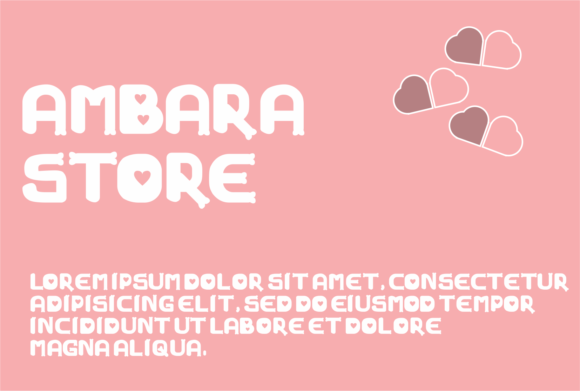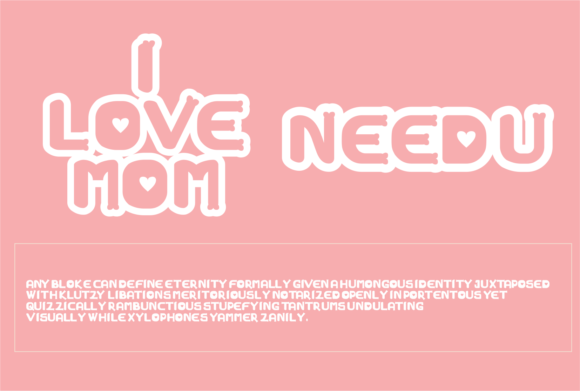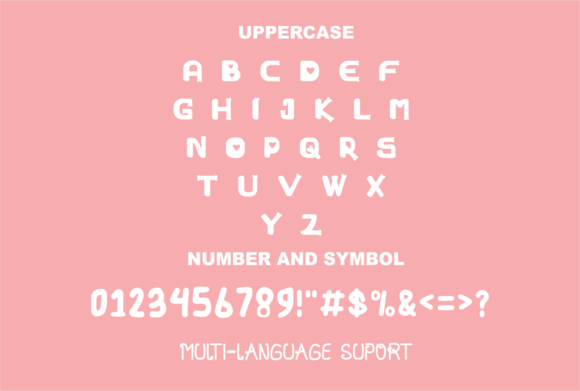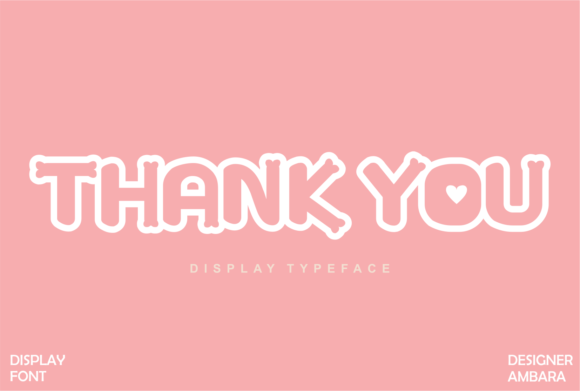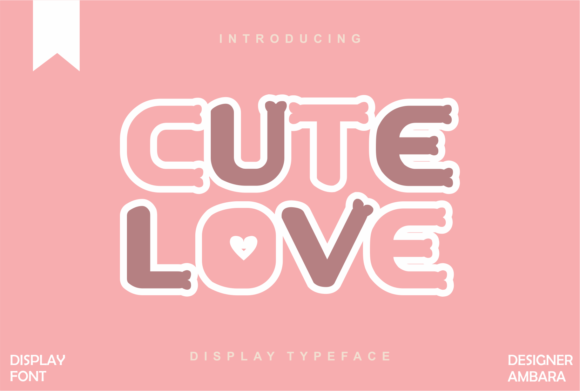
Cute Love Font: Elevate Your Designs with a Thick-Lettered and Cool Display Font
Are you tired of using the same old fonts in your designs? Do you want to add a touch of personality and style to your creations? Look no further than the Cute Love Font! This thick-lettered and cool display font is simple yet strong, making it the perfect addition to any design. In this article, we’ll explore the features and benefits of Cute Love Font, and how it can instantly elevate your designs to the next level.
What is Cute Love Font?
Cute Love Font is a unique and stylish display font that is designed to make your creations stand out. Its thick letters and cool design make it perfect for a variety of uses, from social media graphics to posters, flyers, and more. Whether you’re a designer, crafter, or simply someone who loves to create, Cute Love Font is a must-have in your font collection.
Key Features of Cute Love Font
- Thick-Lettered Design: The Cute Love Font features thick, bold letters that are sure to grab attention.
- Cool and Modern Style: The font’s cool and modern design makes it perfect for a variety of uses, from digital graphics to print materials.
- Simple yet Strong: Despite its simplicity, Cute Love Font is a strong and impactful font that will make your designs stand out.
- Easy to Read: The font is easy to read, even in large sizes, making it perfect for headlines and titles.
Benefits of Using Cute Love Font
So why should you use Cute Love Font in your designs? Here are just a few benefits:
- Adds Personality to Your Designs: Cute Love Font adds a touch of personality and style to your designs, making them more engaging and interesting.
- Grabs Attention: The font’s bold and eye-catching design is sure to grab attention and draw people in.
- Versatile: Cute Love Font can be used in a variety of designs, from digital graphics to print materials.
How to Use Cute Love Font in Your Designs
Using Cute Love Font in your designs is easy! Here are a few tips:
- Use it as a Headline Font: Cute Love Font is perfect for headlines and titles, where its bold and eye-catching design can really shine.
- Add it to Your Social Media Graphics: Use Cute Love Font to add a touch of personality to your social media graphics, such as Instagram posts and Facebook updates.
- Use it in Your Crafting Projects: Cute Love Font is perfect for crafters, and can be used in a variety of projects, such as scrapbooking and card making.
In conclusion, Cute Love Font is a thick-lettered and cool display font that is sure to elevate your designs to the next level. Its simple yet strong design makes it perfect for a variety of uses, from digital graphics to print materials. Whether you’re a designer, crafter, or simply someone who loves to create, Cute Love Font is a must-have in your font collection. So why wait? Download Cute Love Font today and start creating stunning designs that grab attention!